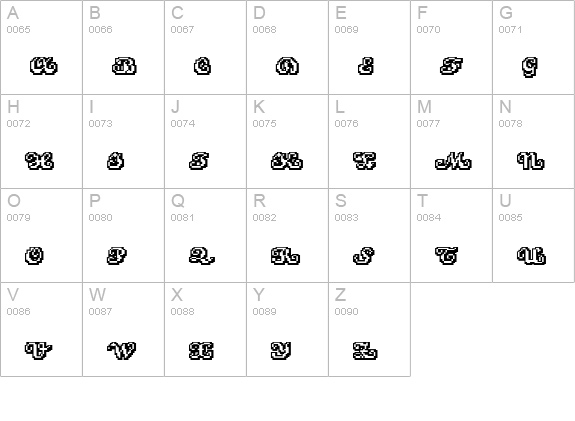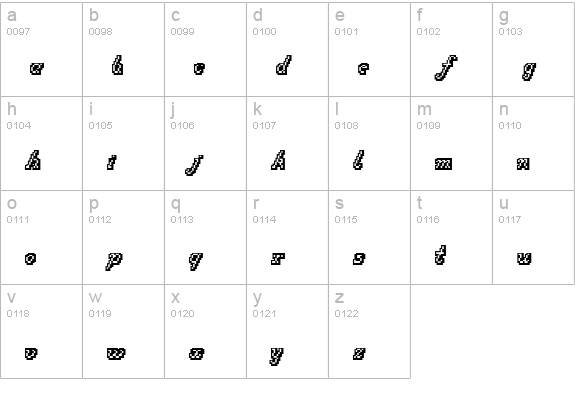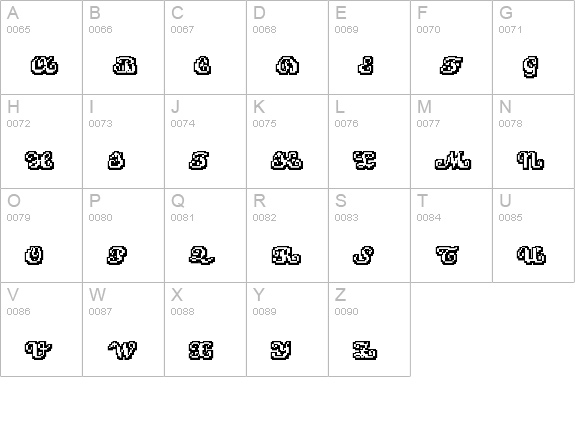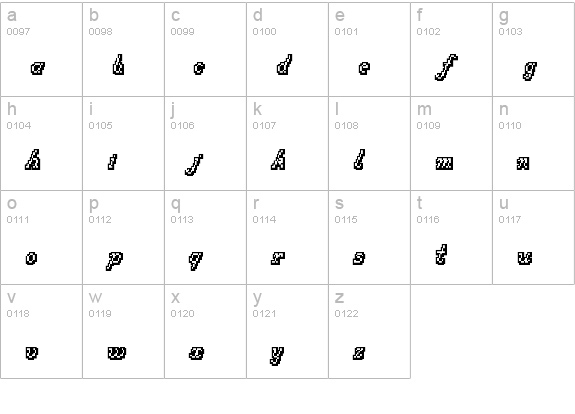
Hannelore Outline Font Details
Hannelore Outline font is a captivating and elegant typeface that exudes a sense of sophistication and modernity. Its unique design combines delicate outlines with clean and crisp lines, creating a harmonious balance between boldness and finesse. This font is perfect for those seeking a contemporary look for their designs, whether it be for logos, headlines, or branding materials. Its versatility allows it to be used in various contexts, effortlessly adding a touch of class and refinement to any project. One of the most appealing aspects of Hannelore Outline font is that it is freely available to download at FontsMarket.com. This means that designers and creatives can enjoy the benefits of this stunning typeface without any cost or restrictions. The ease of access makes it an excellent choice for those on a tight budget or those who simply want to experiment with different fonts in their work. With its wide range of characters and impeccable attention to detail, Hannelore Outline font offers endless possibilities for customization and creativity. Its elegant curves and sharp edges make it a truly eye-catching choice that is sure to leave a lasting impression. So, whether you are a professional designer or an aspiring creative, Hannelore Outline font is a must-have in your font library. Its combination of beauty, versatility, and the fact that it is freely available for download at FontsMarket.com makes it an irresistible choice for all your design needs. Don't miss out on the opportunity to elevate your projects with this exceptional font.